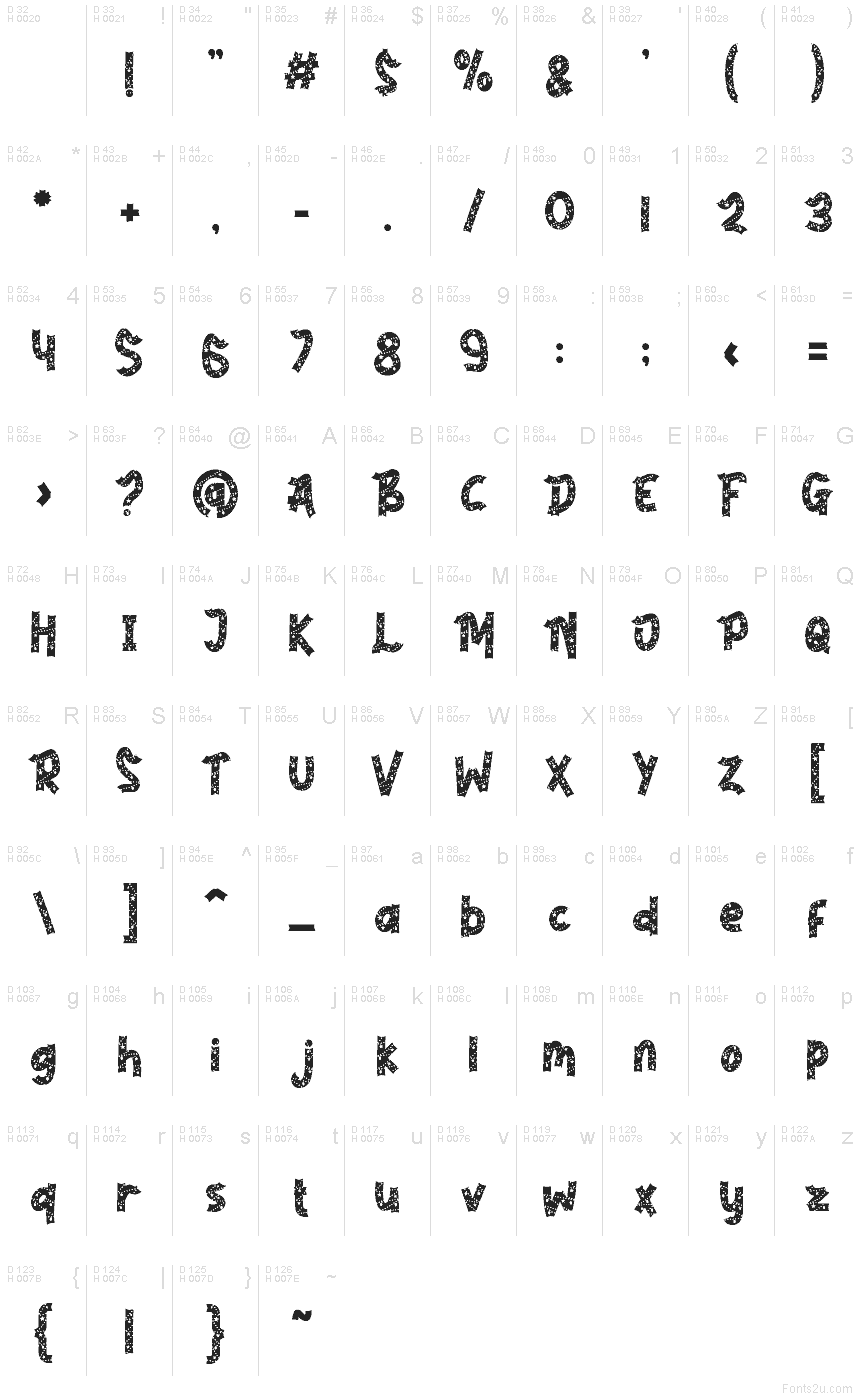
Modern Bauble Bliss One
Modern Bauble Bliss One font by PutraCetol Studio is a free decorative Christmas typeface that looks like it’s been cut from a sheet of patterned gift wrap. Chunky, rounded letters are packed with tiny baubles, snowflakes, stars, and festive doodles, giving every word a “tree covered in ornaments” feeling. The strokes stay even and legible, so all that busy detail reads as cozy texture rather than clutter, especially at larger sizes.
Using Modern Bauble Bliss One, you can instantly turn simple text into holiday artwork for greeting cards, party invitations, gift tags, classroom crafts, social media promos, and seasonal branding. This free font shines on big headlines and short phrases; pair it with a clean sans serif for body copy so the decorative letters stay the star. Try generous line spacing and bold color backgrounds to let the intricate bauble pattern really twinkle.